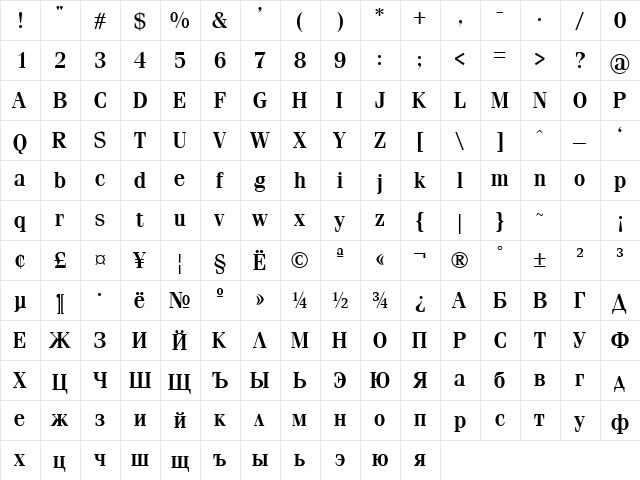
SimeizLight Bold
Design Context for SimeizLight Typeface
SimeizLight takes a measured approach to typography — its balanced proportions and neutral character make it a reliable workhorse for both digital and print work. The heavy weight commands attention and anchors typographic hierarchies.